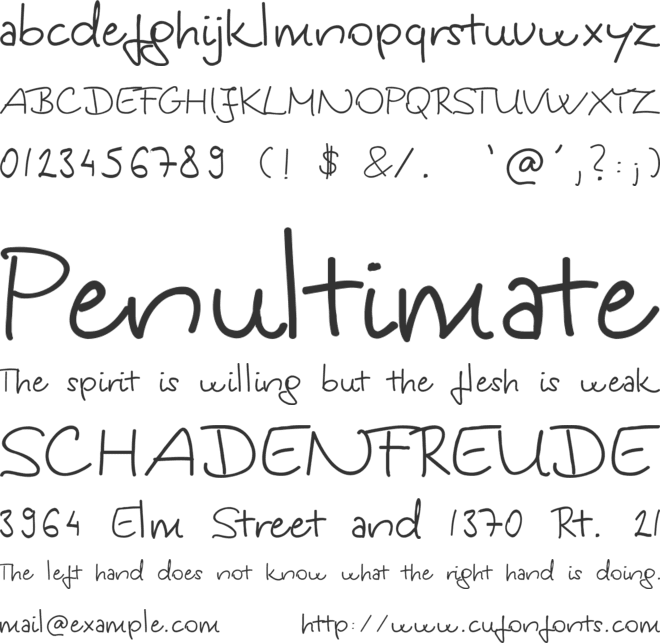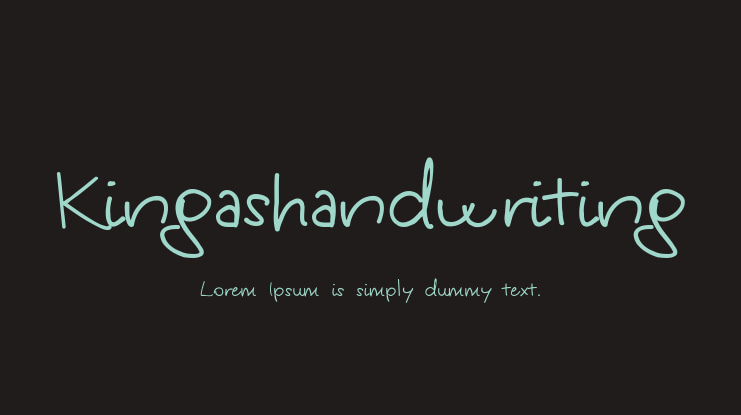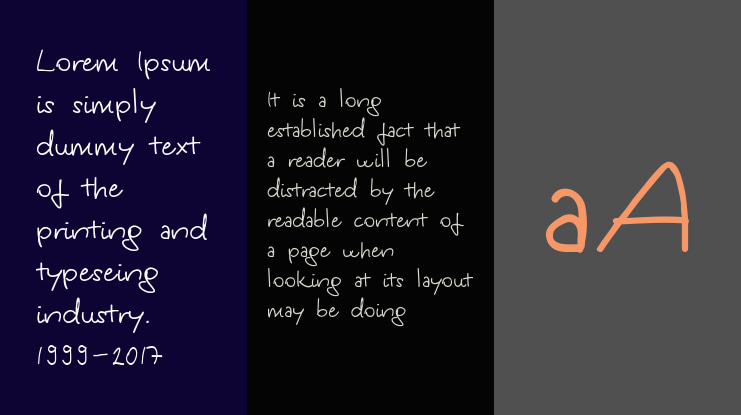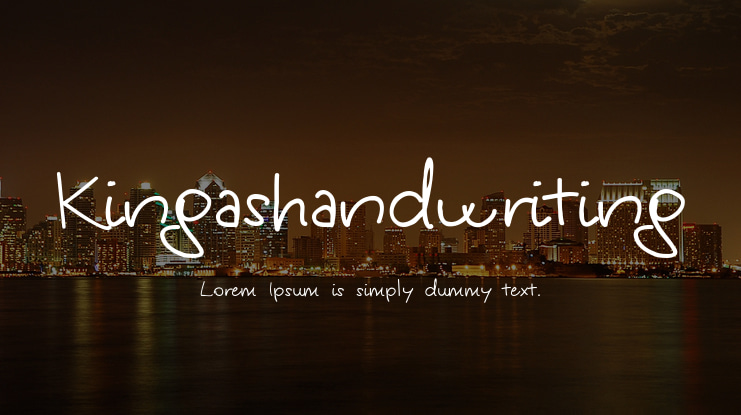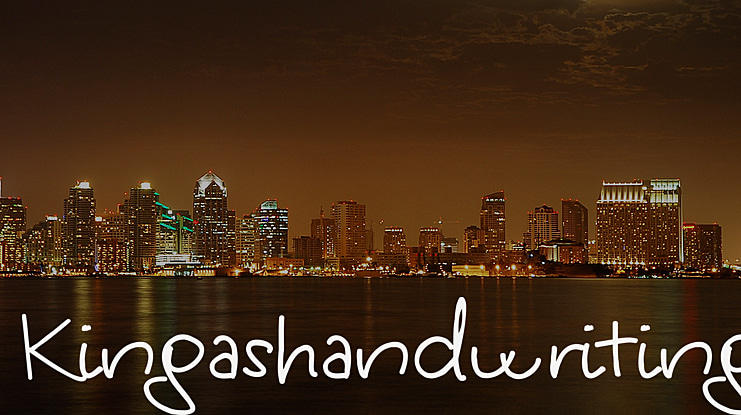
Kingashandwriting Font
Roland Huse
This is based on my Sister's handwriting, each character has been created as a vector, no scan. Hope you like it, feedback would be appreciated. Cheers!